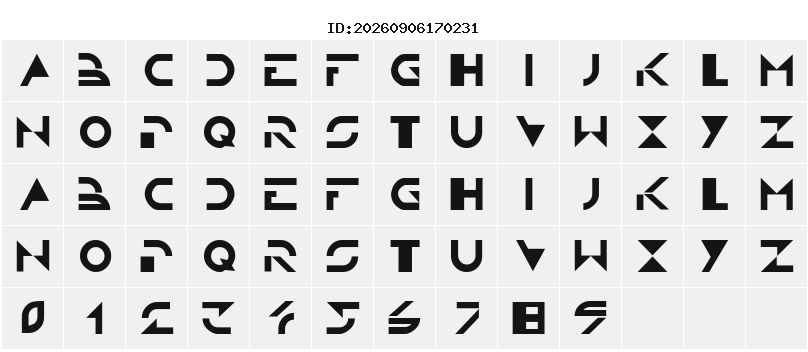
TRON Preview
• Font Name: TRON
• Full Font Name: TRON
About TRON.ttf
TRON.ttf is a modern, elegant sans-serif font designed for ultimate readability and visual harmony. Perfect for branding, headlines, web design, and print materials.